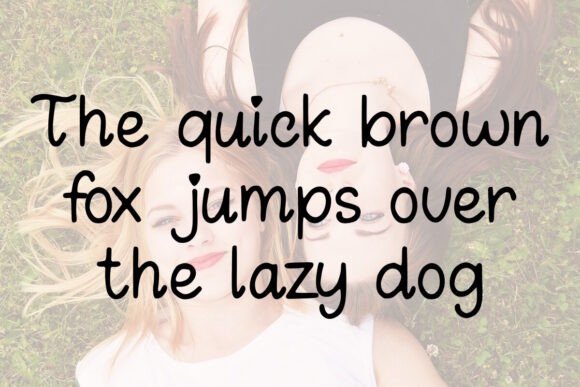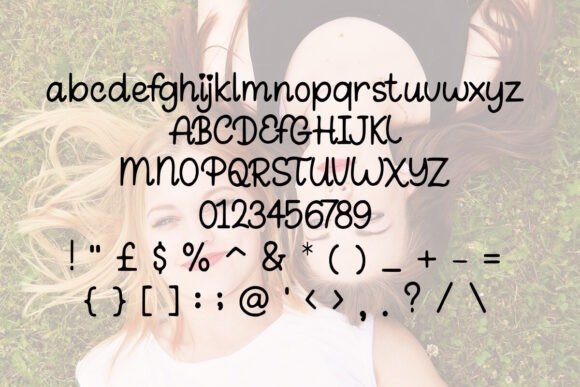
Introduction to Galentine’s Day Font Font
Fonts play a crucial role in design, and the Galentine’s Day Font font is a typeface that brings both character and versatility to any project. Whether you’re working on a branding project, a website, or a print design, the Galentine’s Day Font font offers a unique style that can elevate your work.
| 📌 Font Name | Galentine’s Day Font |
| 👤 Author | Donna and D.A.V.E |
Add a touch of love to your designs with Galentines Day, (celebrating 13th February) a playful handwritten font featuring sweet, rounded strokes and a dash of whimsy.
Perfect for bringing warmth and imagination to your projects, this font is ideal for designs that need a fun and lighthearted feel .
Key Features of Galentine’s Day Font Font
Why Choose Galentine’s Day Font Font?
The Galentine’s Day Font font is more than just a typeface – it’s a design tool that helps you communicate your message with style and clarity. Its unique character set and versatile design make it suitable for a wide range of applications, from elegant invitations to bold headlines.
With its carefully crafted letterforms and balanced proportions, the Galentine’s Day Font font ensures readability and visual appeal across all mediums.
What makes Galentine’s Day Font font special?
The Galentine’s Day Font font stands out with its unique design, exceptional readability, and versatility across various design applications.